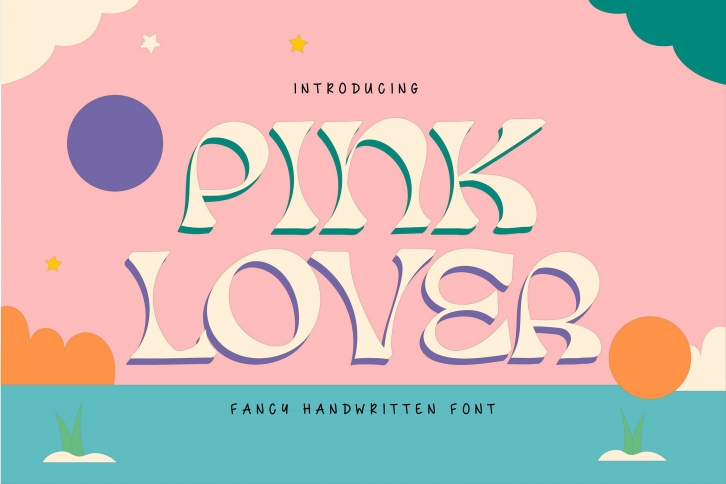
Pink Lover is a cool, whimsical and retro styled display font. It is PUA encoded which means you can access all of the glyphs and swashes with ease!Â